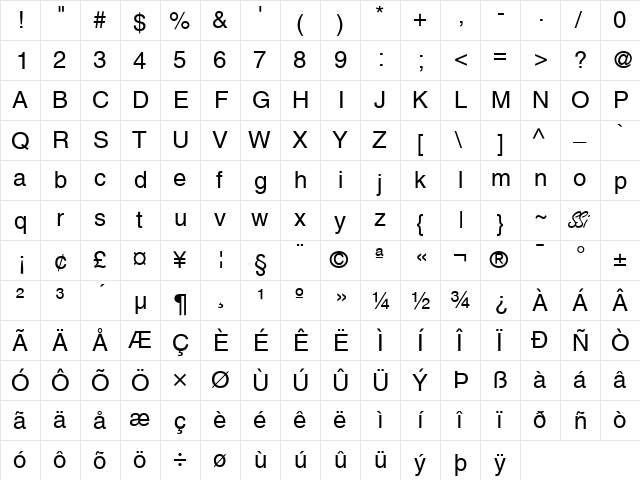
Context SSi Regular
Design Context for Context SSi Typeface
Context SSi is a composed and adaptable typeface that performs quietly and consistently across a wide range of design contexts.